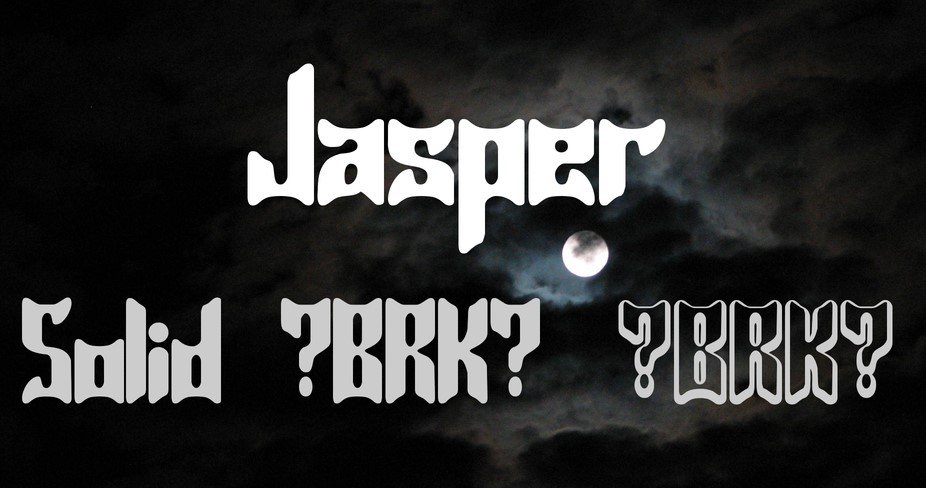
Let’s introduce the beautiful Jasper Font, a highly favored typeface among seasoned graphic designers. This font will assist you with all your development and design needs.
The font is best for pairing use and you can use the typeface with the mixing of two texture of two font with harley davidson font which will give you a great designs layout.
The typerace has great ligatures and unique textures that can be useful while designing bigs screen projects like banners, posters, logos or something big that you want and you clients want from you.
Here we provide an image which includes the characters and letters of this beautiful, you can perceives it by viewing on the image and get an idea how delightful it is
The font was designed by developed for High Resolution or HD images. You can creates large project with this typeface.
The font contains elegant and unique typeface which has a popular texture so that can also be used in pairing also. That’s why each designer treated it as a really perfect font in all appreciate.
Style Display
What Type of Font Is Jasper?
The Jasper Font is the famous and amazing typeface that has unique and elegant touch for making beautiful designs.
Can I Use Jasper for My Logo?
Of course you can use the Jasper for your logo as well as all other graphic designs projects.